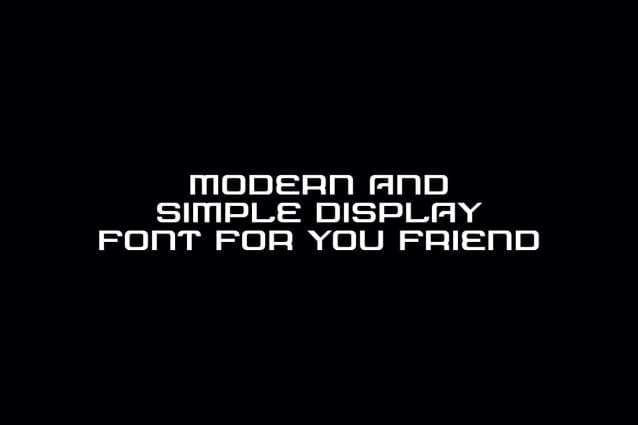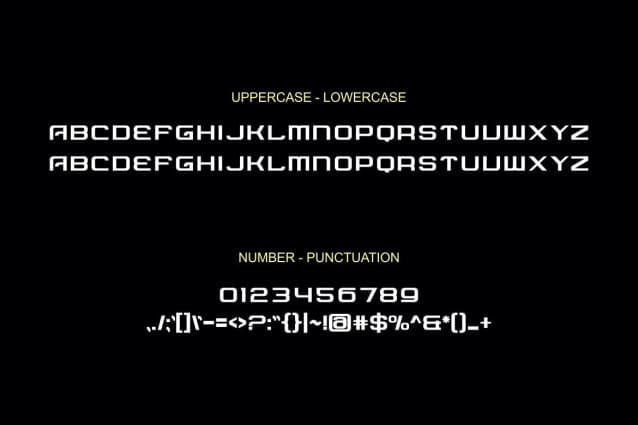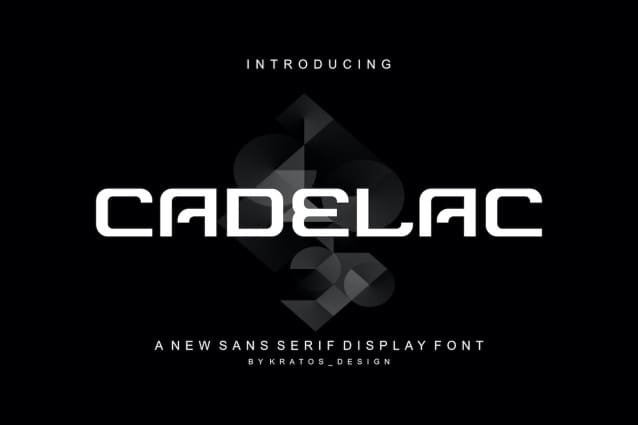
Cadelac Font
Cadelac Font – Modern Font is a bold and authentic display font. The font is suitable for any branding project like Logo, Template Design, Product and many more. It is remarkable in a wide range of contexts.